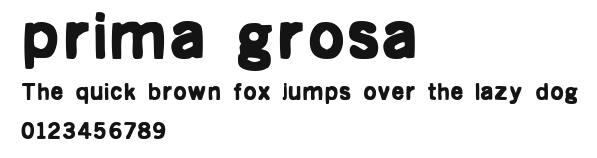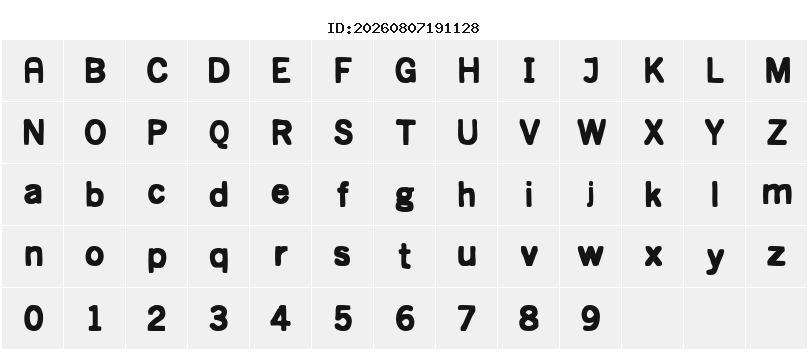
• Font Name: prima grosa
• Font ID: Macromedia Fontographer 4.1 prima grosa
• Full Font Name: prima grosa
• Version: Macromedia Fontographer 4.1 10/11/97
• PostScript Name: Primagrosa
• Character Count: 109
• Copyright: io grafix 1997
About prima grosa.ttf
prima grosa.ttf is a modern, elegant sans-serif font designed for ultimate readability and visual harmony. Perfect for branding, headlines, web design, and print materials.